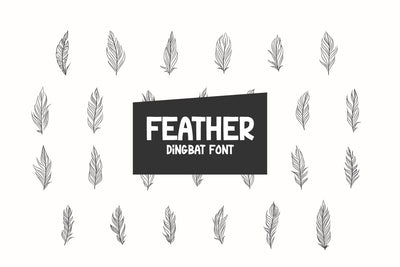
Feather - Dingbat Font
Feather is a real hand-drawn dingbat font with a natural style that creates a beautiful sense of art. This font contains a feather glyph